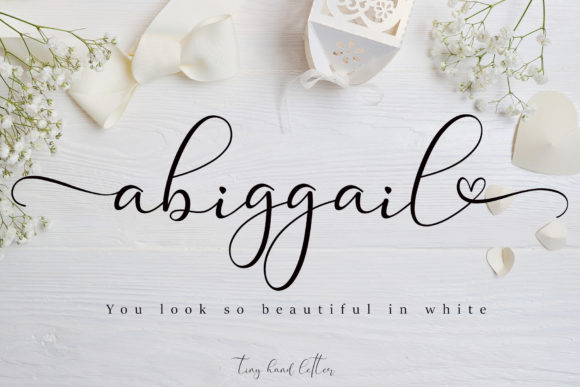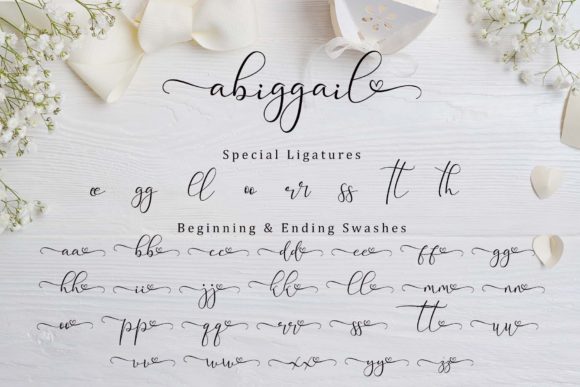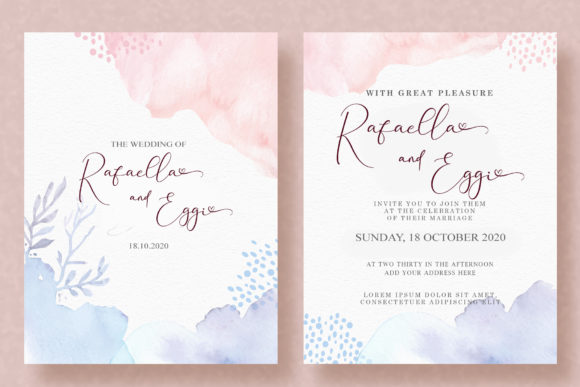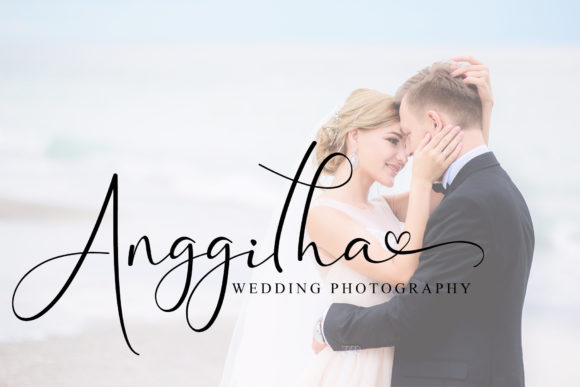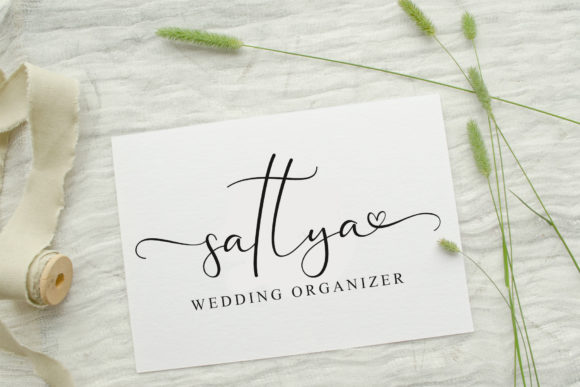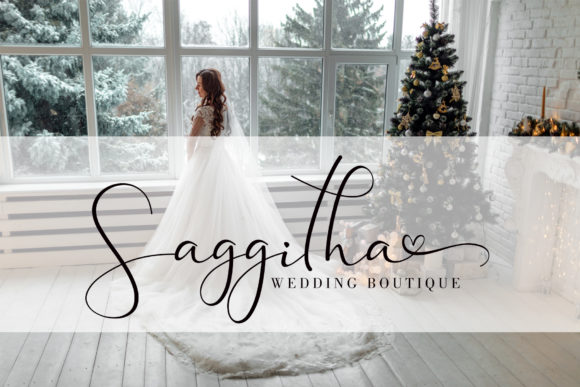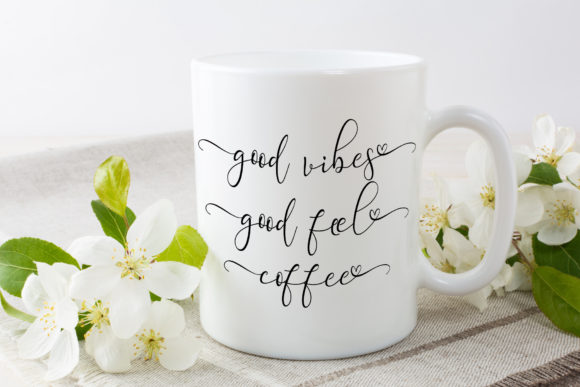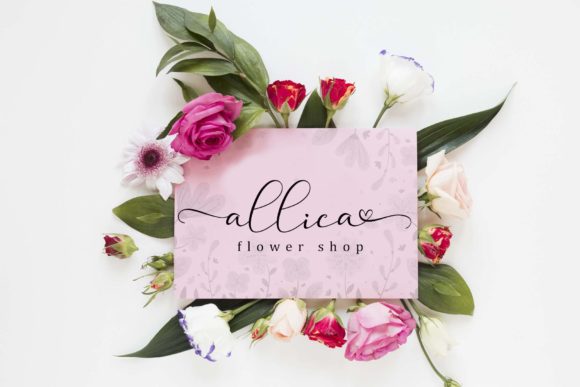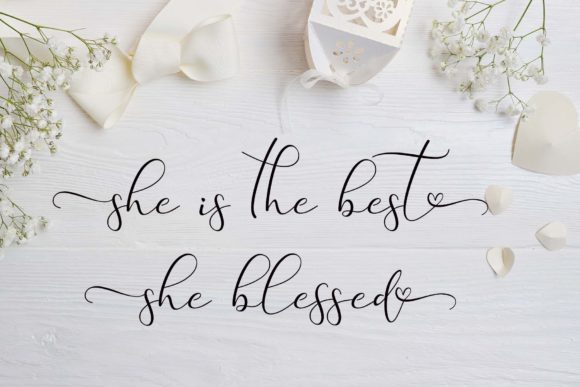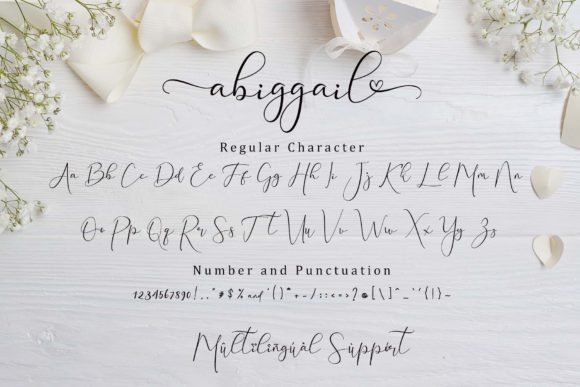
Abiggail Font
About Abiggail Font
Abiggail is a sweet font with beautiful swashes and ligatures. It looks stunning on wedding invitations, thank you cards, quotes, greeting cards, logos, business cards and every other design which needs a handwritten touch.